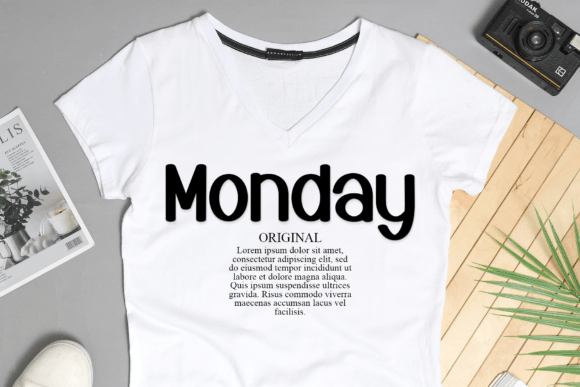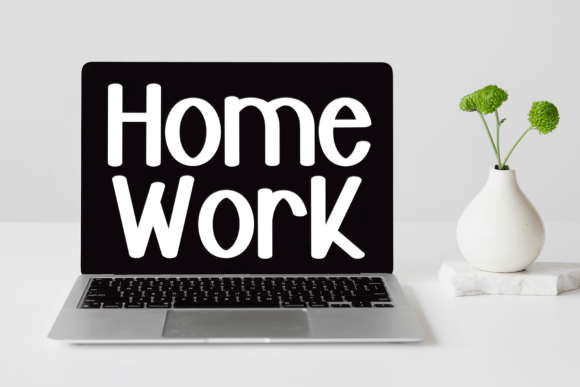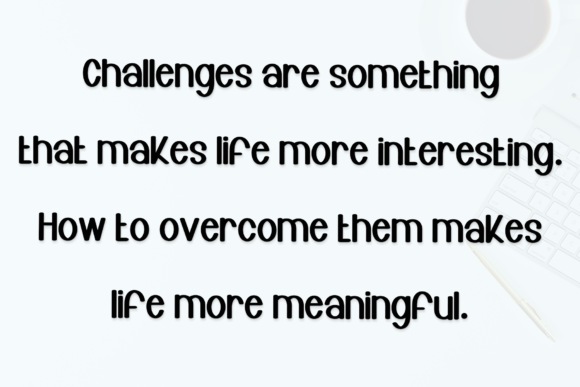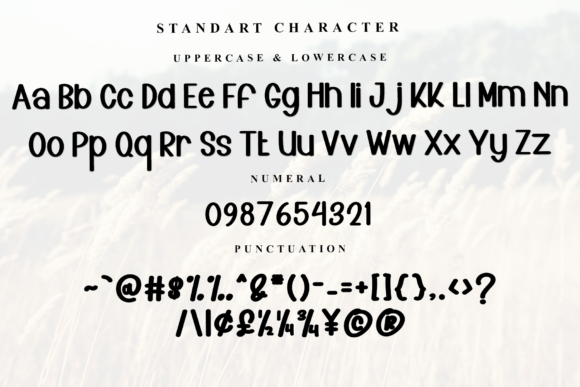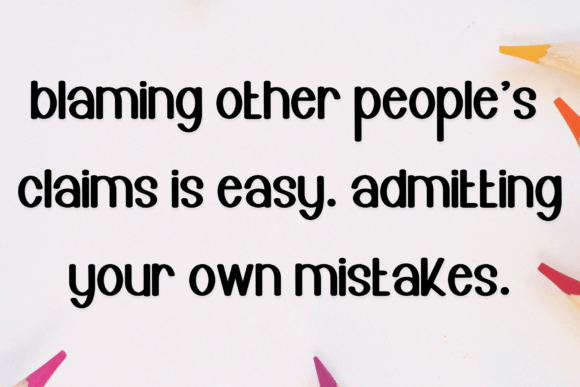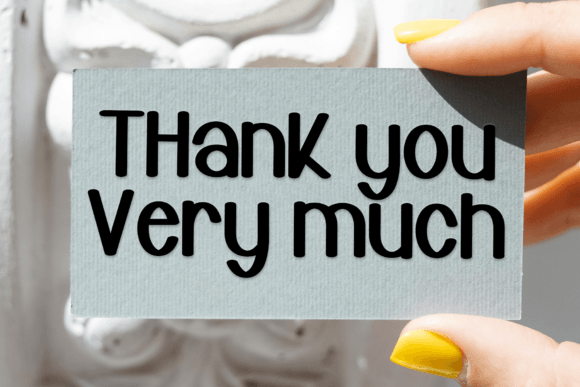
Introduction to Morning Cowboy Font
Have you ever found yourself sipping coffee at dawn, surrounded by nothing but the sound of crickets and the soft glow of sunrise? That’s when the magic happens – the moment when creativity strikes and your mind starts racing with ideas for your next project. For designers, this moment is precious, and the right font can make all the difference. That’s why we’re excited to introduce you to the Morning Cowboy Font, a beautiful and refined display font that’s perfect for elevating your creative project.
With its classy, elegant, and modern look, the Morning Cowboy Font is a valuable addition to any designer’s toolkit. Whether you’re working on a logo, branding, invitation, or social media post, this font is sure to impress. And the best part? It’s free to download, making it an accessible design resource for anyone looking to take their creative project to the next level.
What sets the Morning Cowboy Font apart is its high-quality design and PUA encoding, which allows for easy access to all the amazing glyphs and ligatures. Imagine having a transparent background and being able to customize your font to perfection – it’s a designer’s dream come true.
Key Features of Morning Cowboy Font
- High-quality, hand-drawn design with a unique, western-inspired aesthetic.
- Transparent background, making it easy to use in creative projects with complex backgrounds.
- Features a bold, yet elegant design, ideal for use in titles, headings, and other prominent text elements in a creative project.
- Perfect for use in logos, branding materials, and other design elements where a unique, high-quality font is needed.
Honest Review: Morning Cowboy Font
I recently had the chance to work with the Morning Cowboy Font, and I’m excited to share my thoughts on this unique design resource. Overall, I found the font to be high quality and perfect for creative projects that need a touch of rustic charm.
What works well: ✨ The font’s transparent background makes it easy to overlay on top of images or use as a background itself. The design is clean and simple, yet evocative of the American West. The font is also free to download, which is a huge plus for designers on a budget.
- High quality design
Overall, I’m impressed with the Morning Cowboy Font, and I’d definitely consider using it in future design projects. With a bit more attention to licensing and font variety, it could be an even more valuable resource for designers.
The Morning Cowboy Font is a high-quality design resource that can add a unique touch to your creative project. This font features a transparent background, making it easy to use and customize in various design applications.
To get the most out of the Morning Cowboy Font, try experimenting with different font sizes, colors, and styles. You can also combine the font with other design elements, such as images and shapes, to create a unique and eye-catching design.
The Morning Cowboy Font can be used in a variety of creative projects, including:
- Brand identity designs
- Website designs
- Print materials